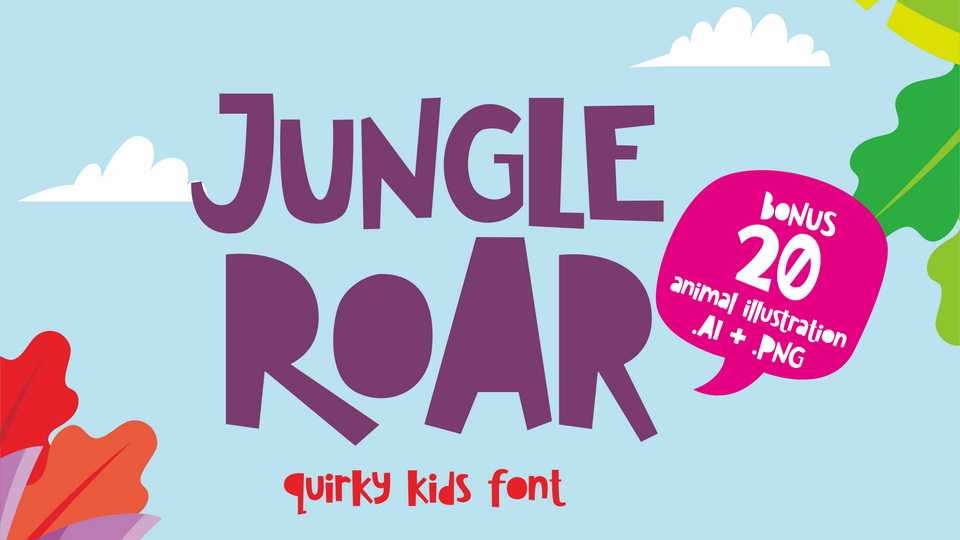
Download Jungle Roar font, a cute, quirky, and friendly typeface. Jungle Roar is perfect for your children related project, such as book, poster, educational, coloring book, stickers, wall decoration, and many more.